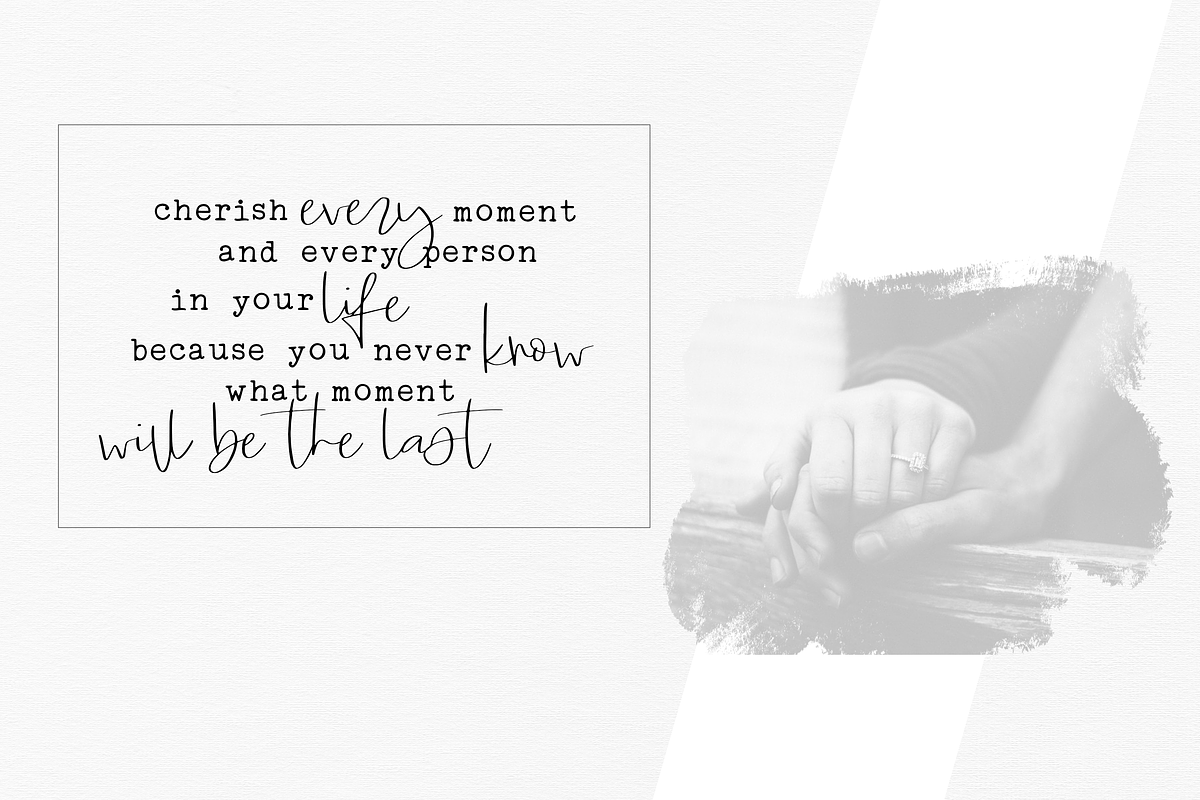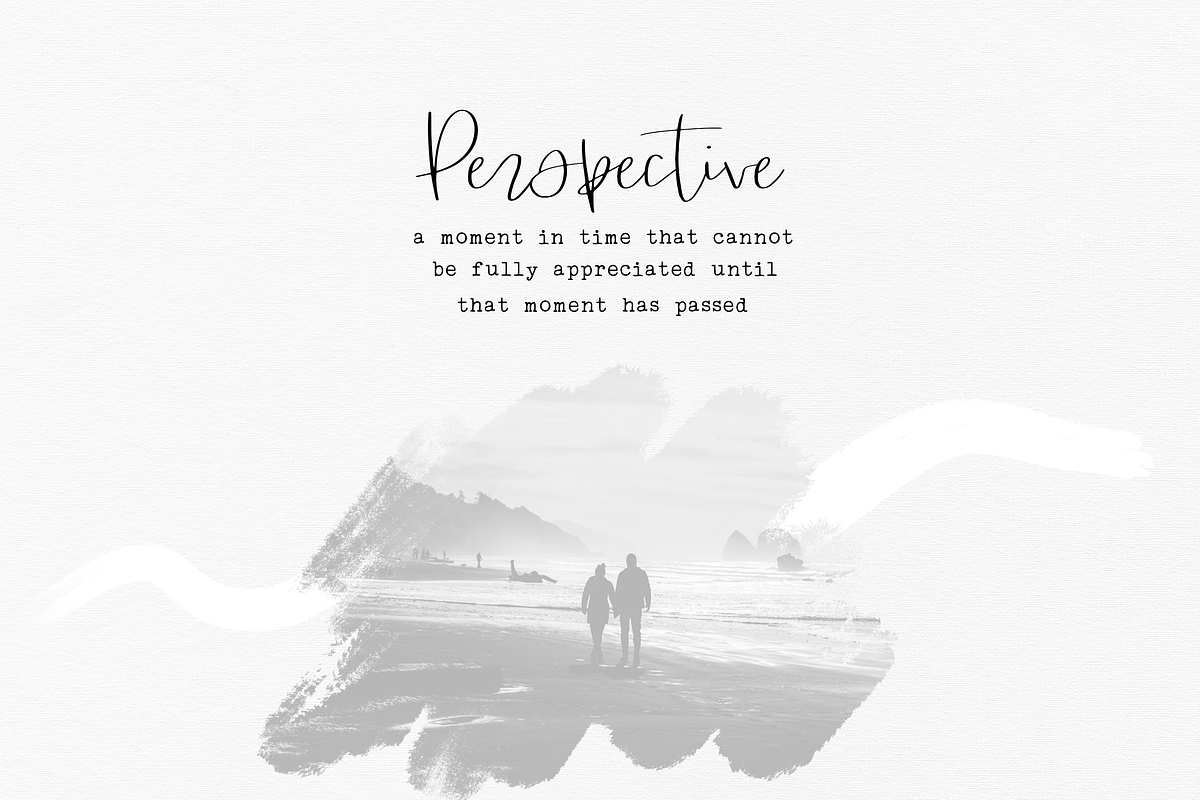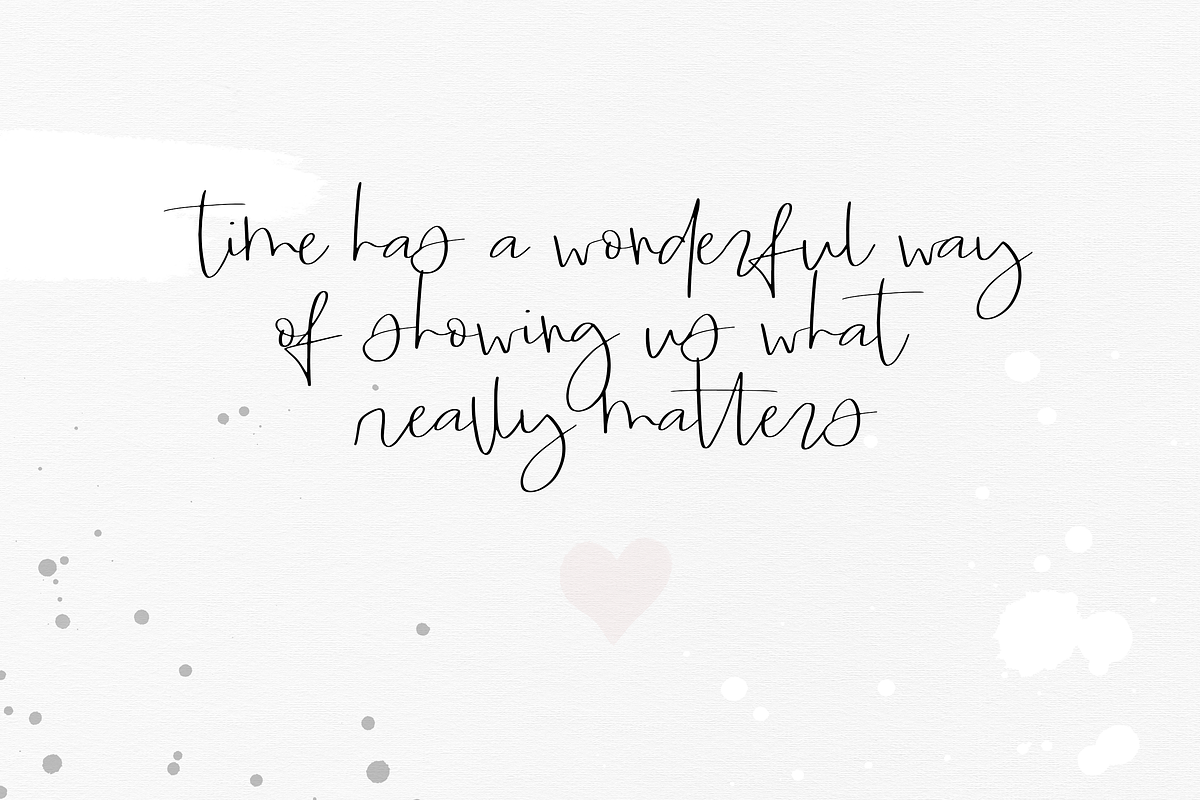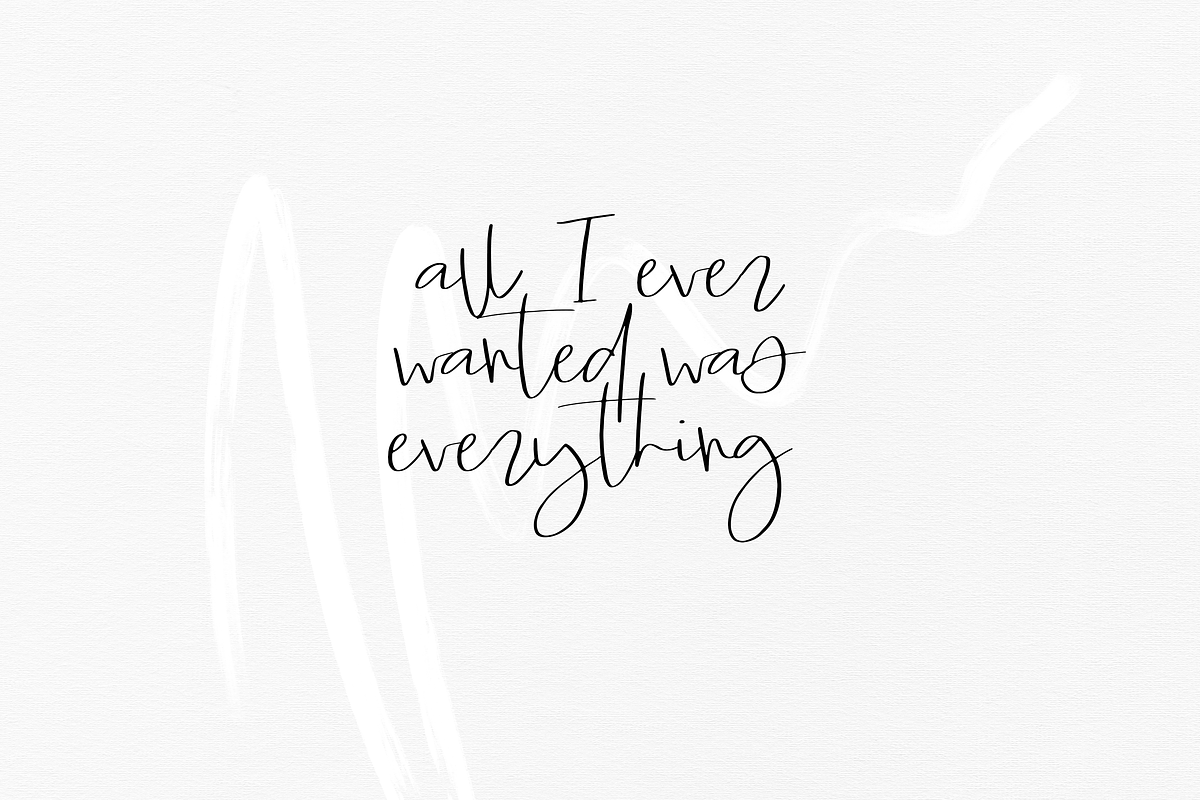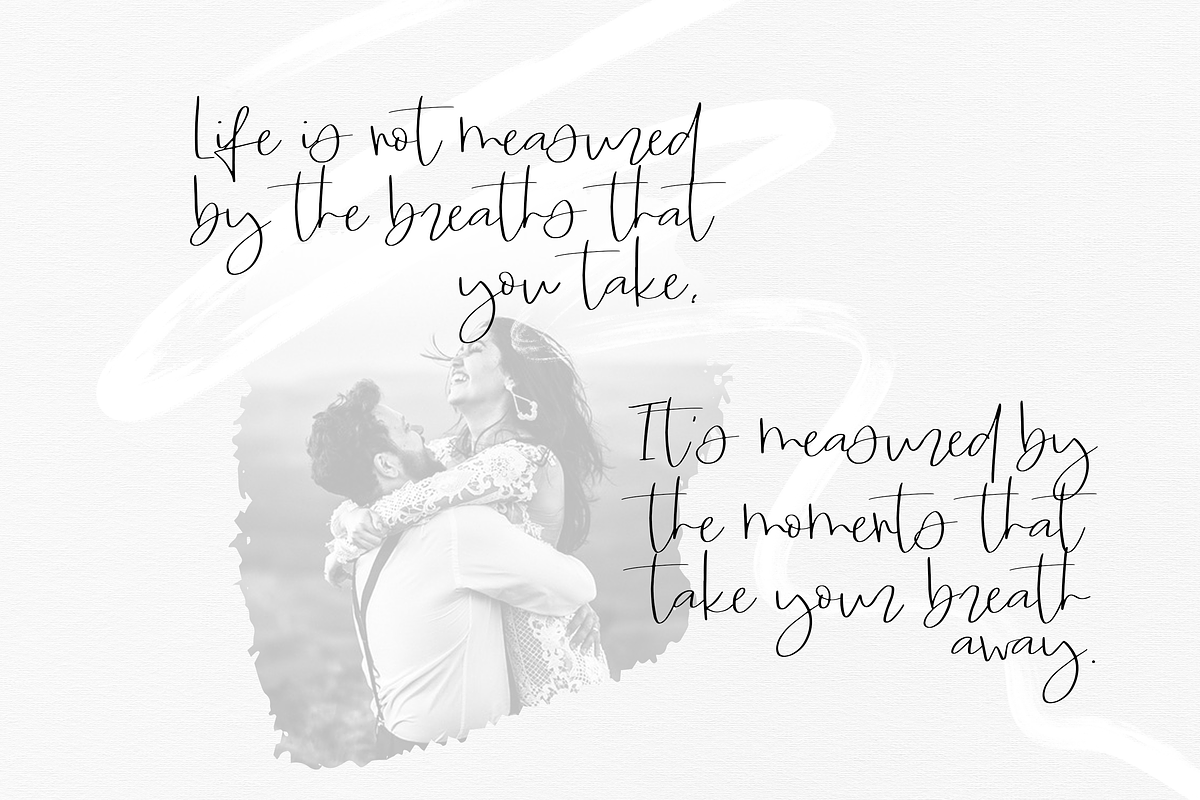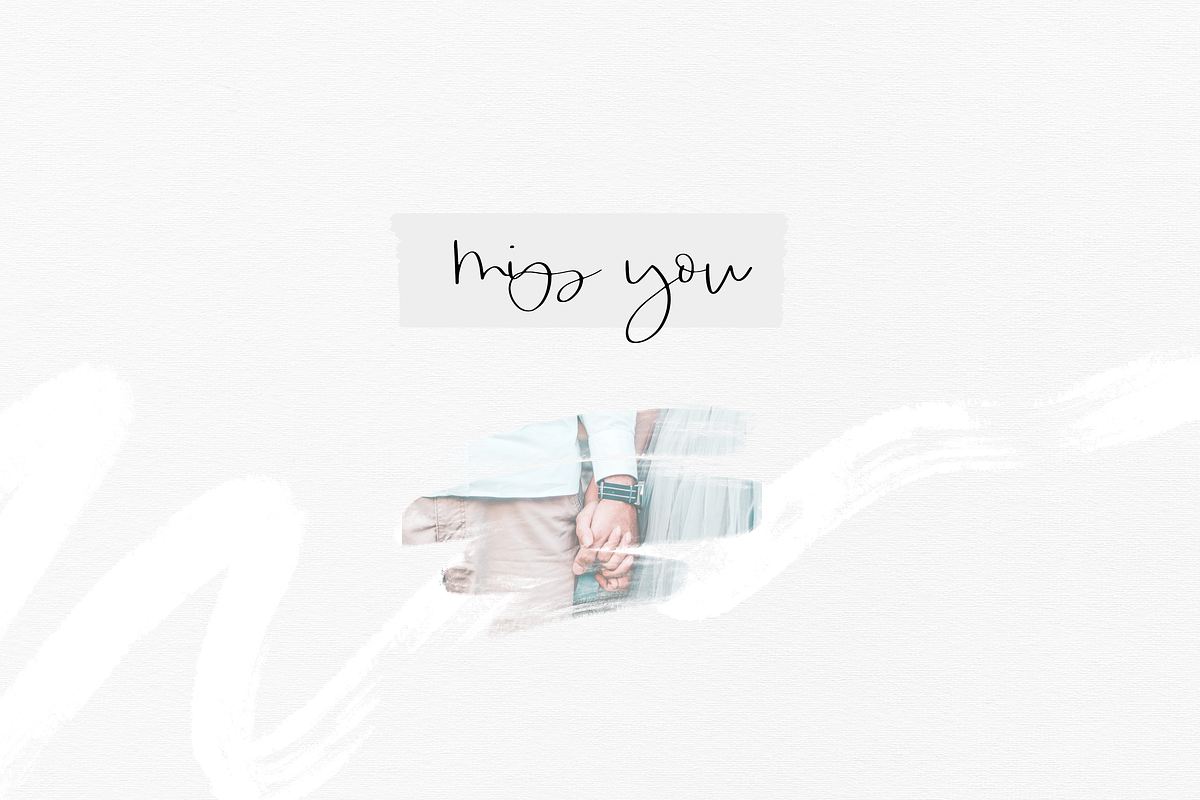
Timeless - Handwritten Script Font
Timeless is a classy handwritten script font.
This font is perfect for quotes, headings, blogs, logos, invitations and more!
This font does NOT include accent characters at this time.
Timeless - Handwritten Script Font by KA Designs fits naturally into Branding, posters, packaging, typography.